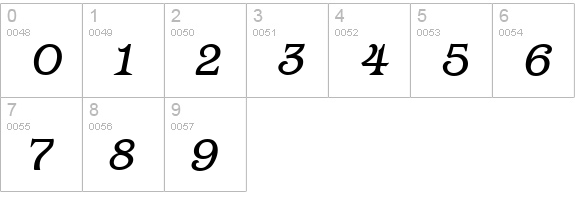
Barcelona Italic is a distinctive, italic variant in the Barcelona typeface family \xE2\x80\x94 well suited to design and typography projects.
Barcelona Italic font exudes a sense of elegance and sophistication with its sleek and modern design. The italicized style adds a touch of flair and uniqueness to any text or design project. The font features clean lines and a contemporary look that makes it perfect for a wide range of applications, from branding to editorial design. What sets Barcelona Italic font apart is not just its striking appearance, but also the fact that it is completely free to download at FontsMarket.com. This means that you can enhance your projects with this stunning font without any cost involved. Whether you're working on a website, poster, or logo, Barcelona Italic font is sure to elevate your design and leave a lasting impression. Download it today and see the difference it can make in your creations.